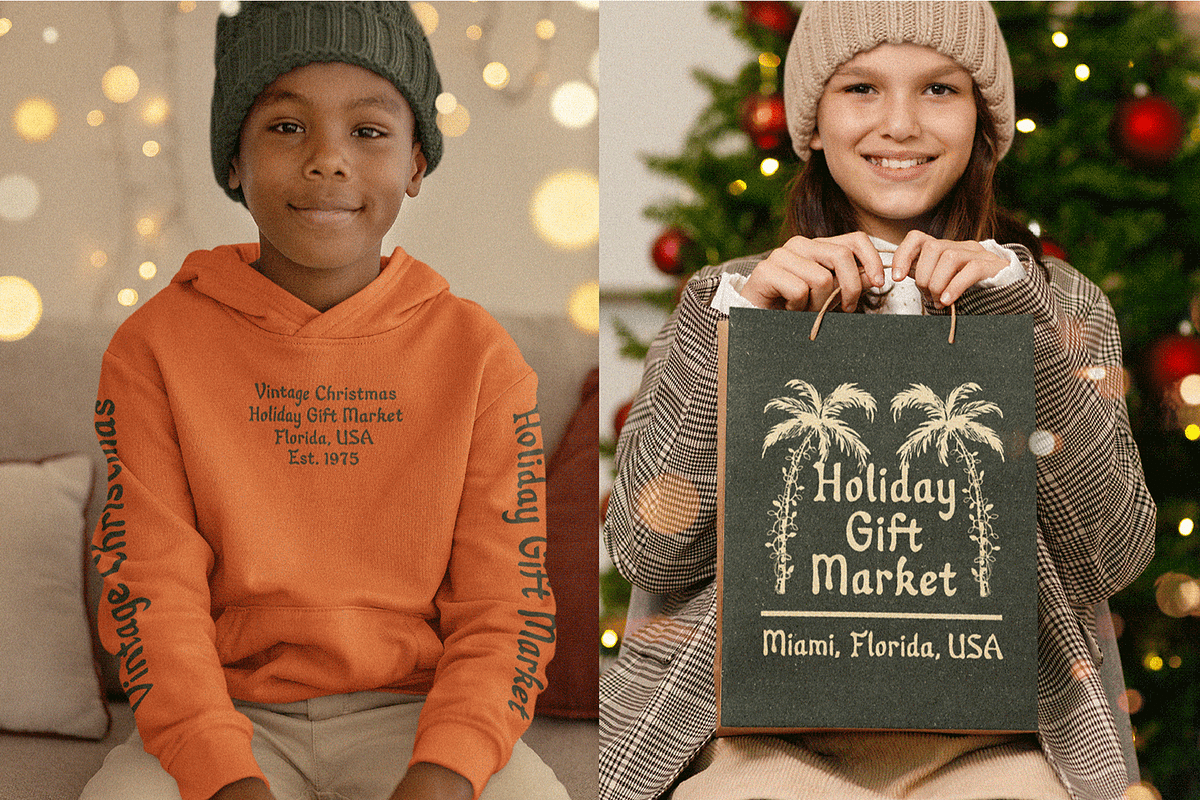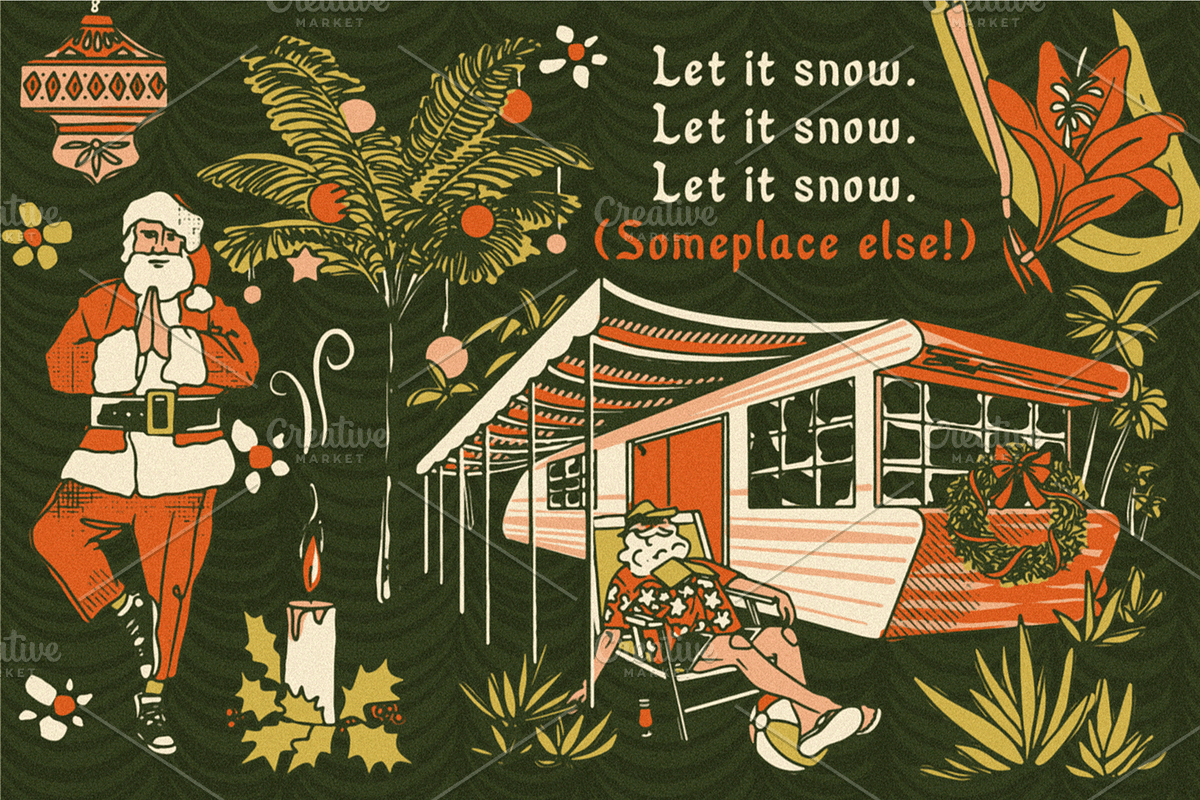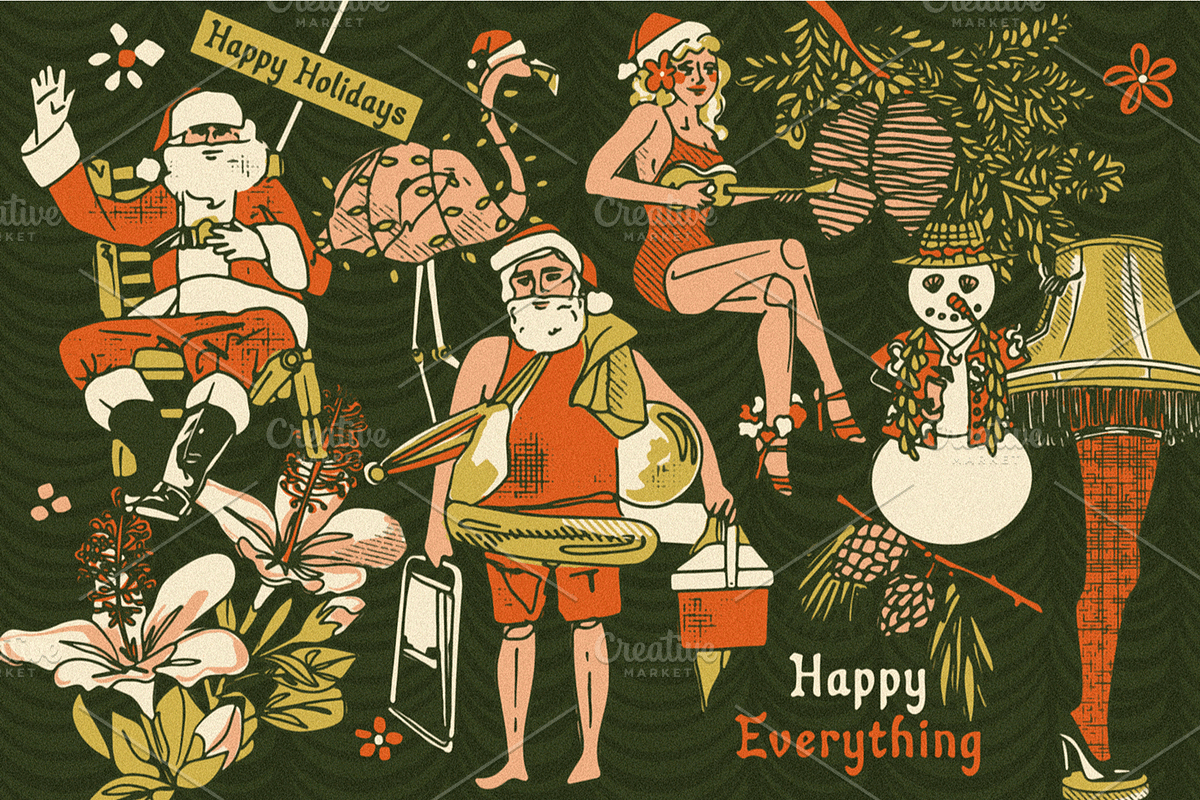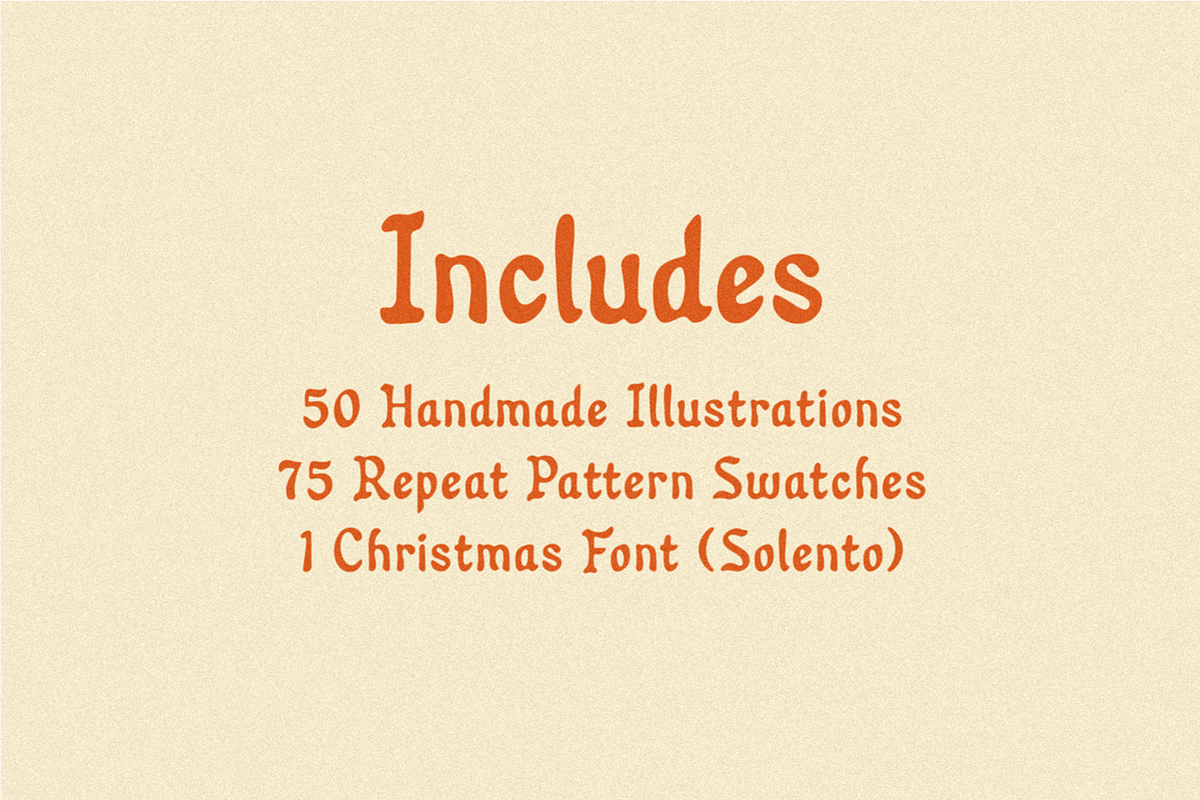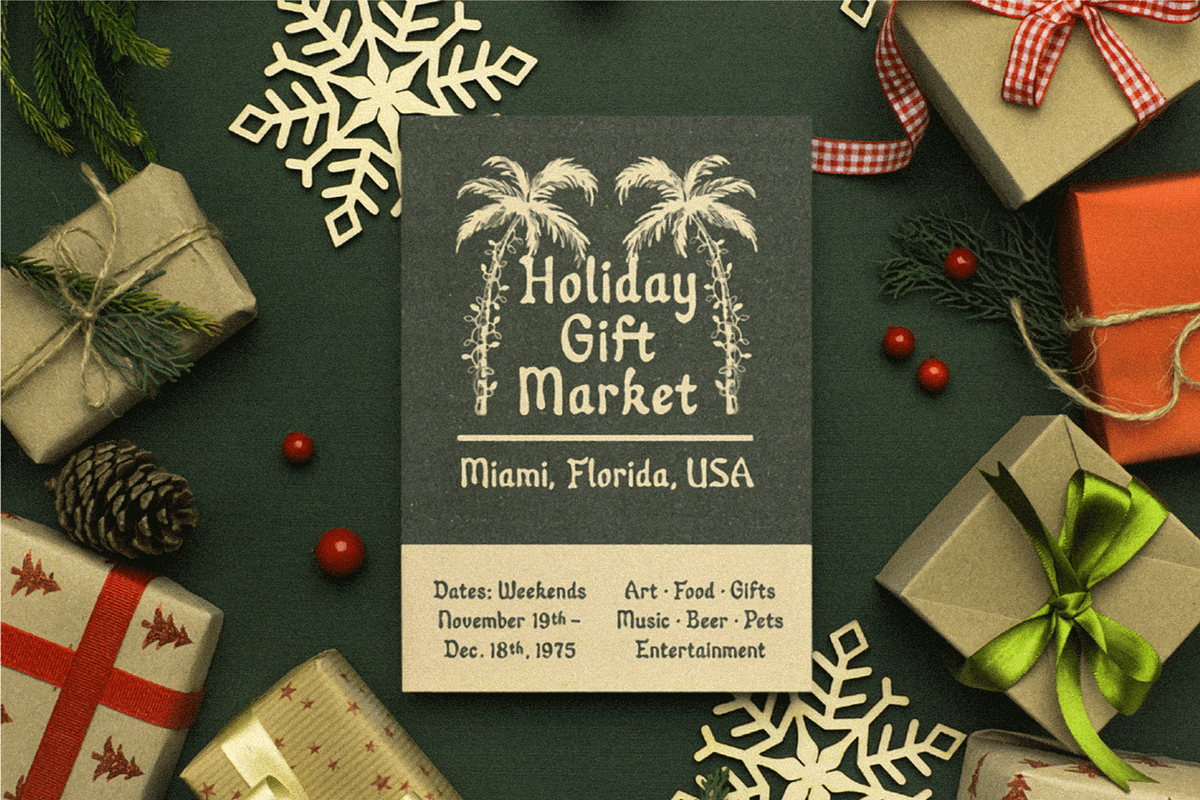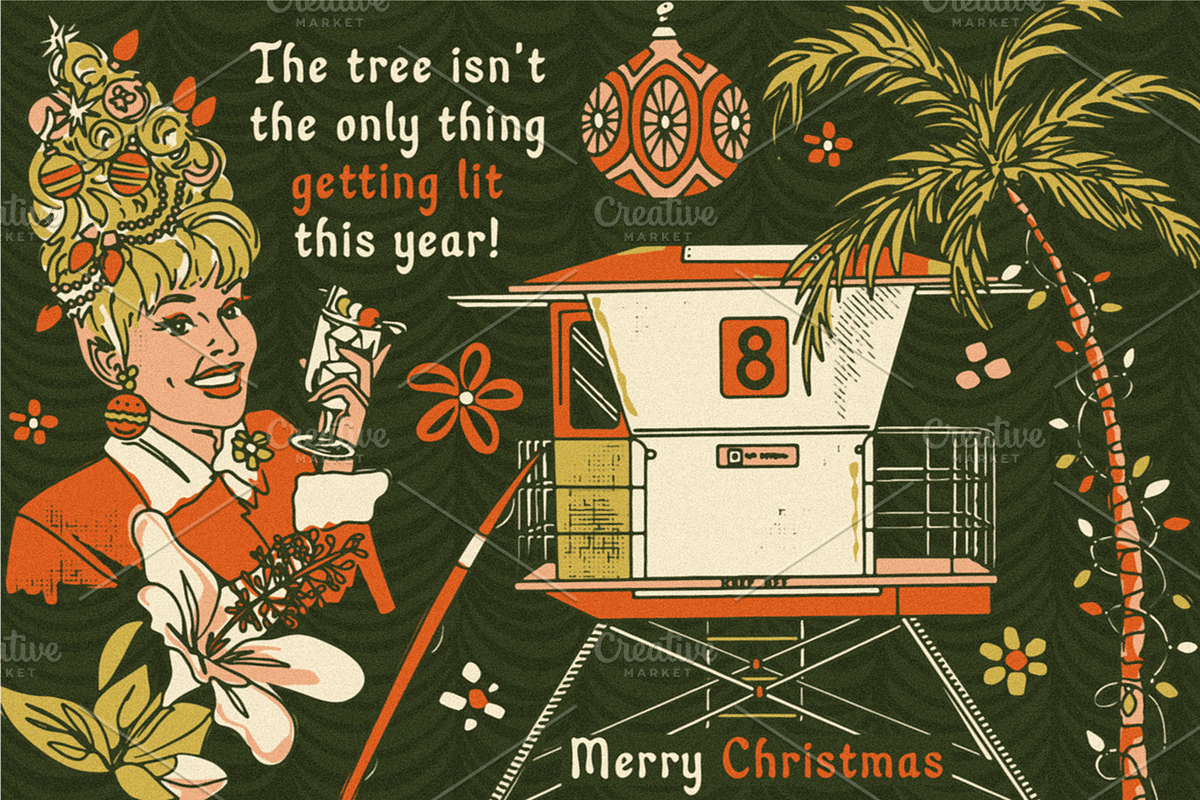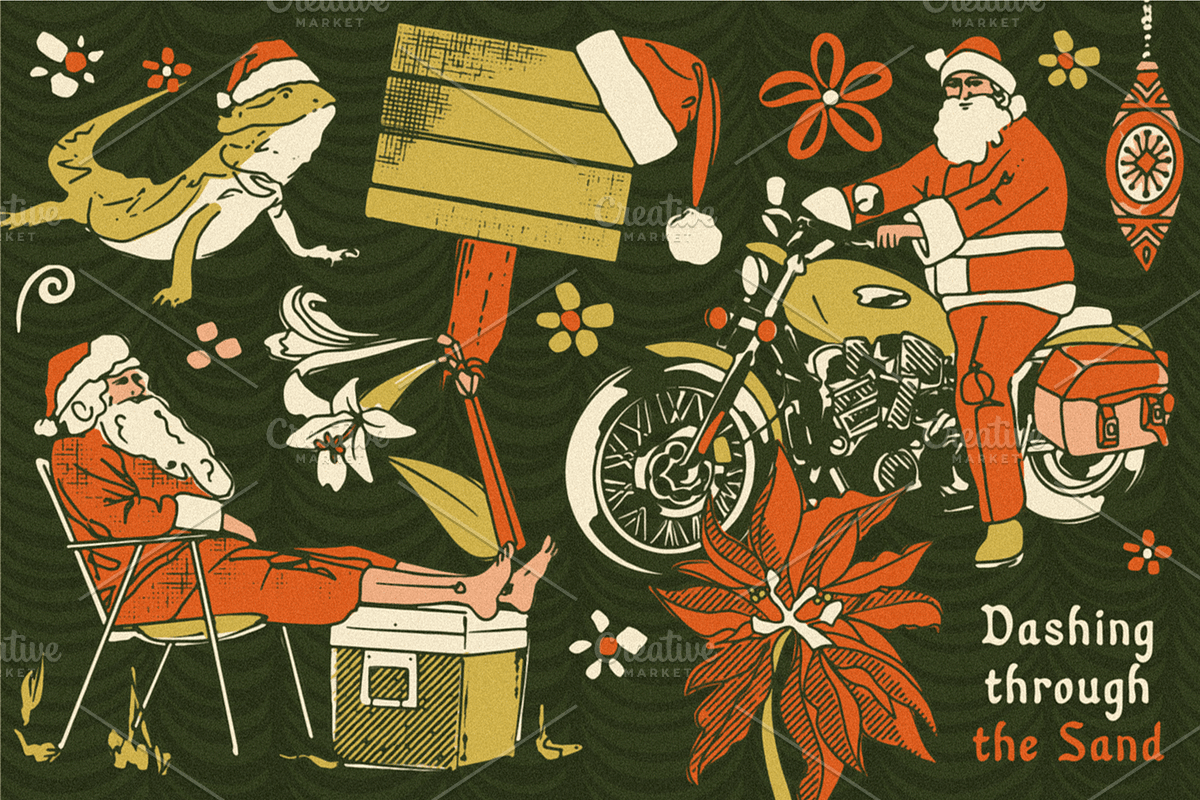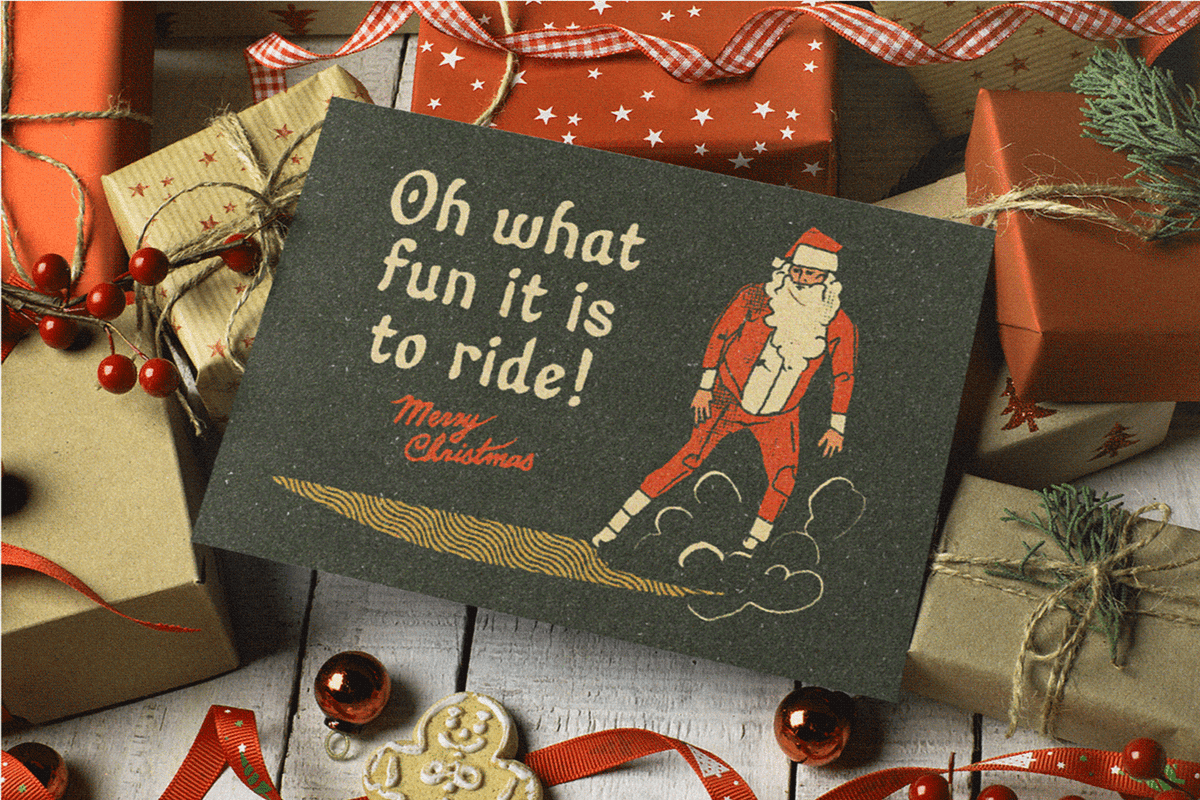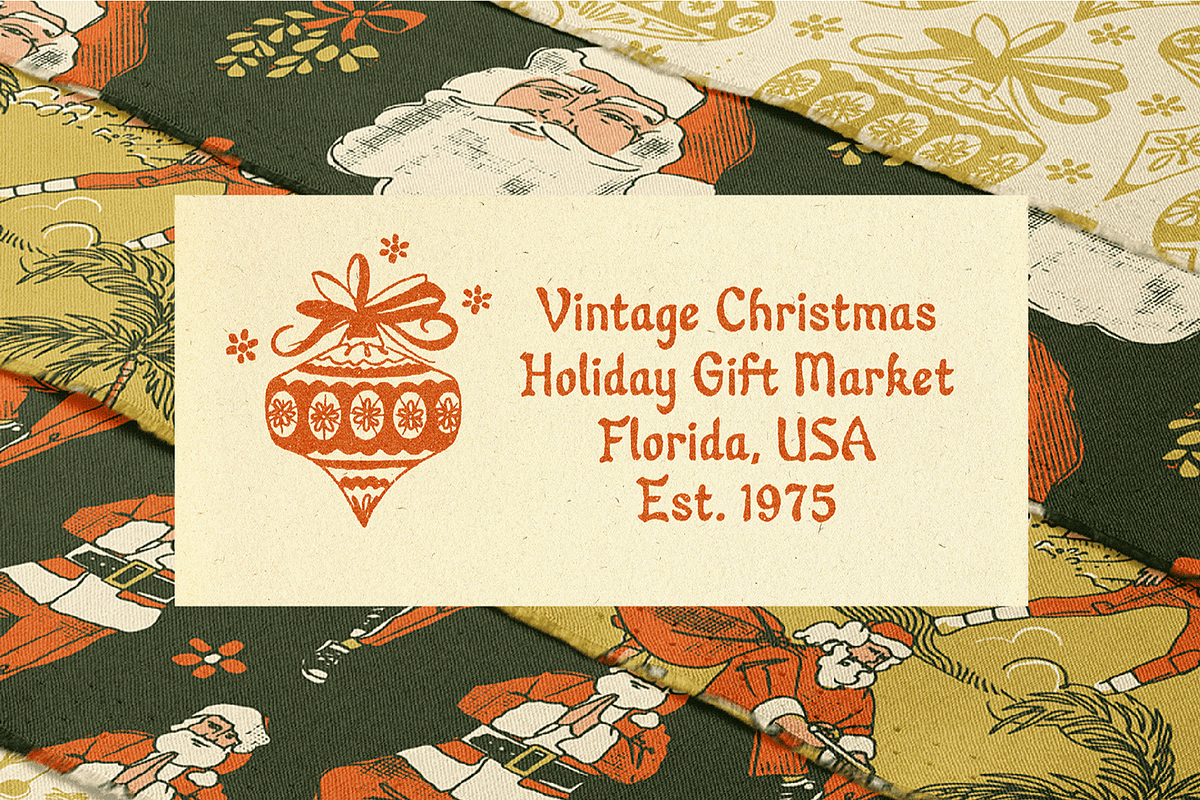
Vintage Christmas Collection: 3-in-1
VINTAGE CHRISTMAS: Fonts, Patterns, and Graphics – Inspired by retro Christmas wrapping paper and holidays spent at the beach. Designs include vintage Santas surfing, boating, water skiing, and so much more!